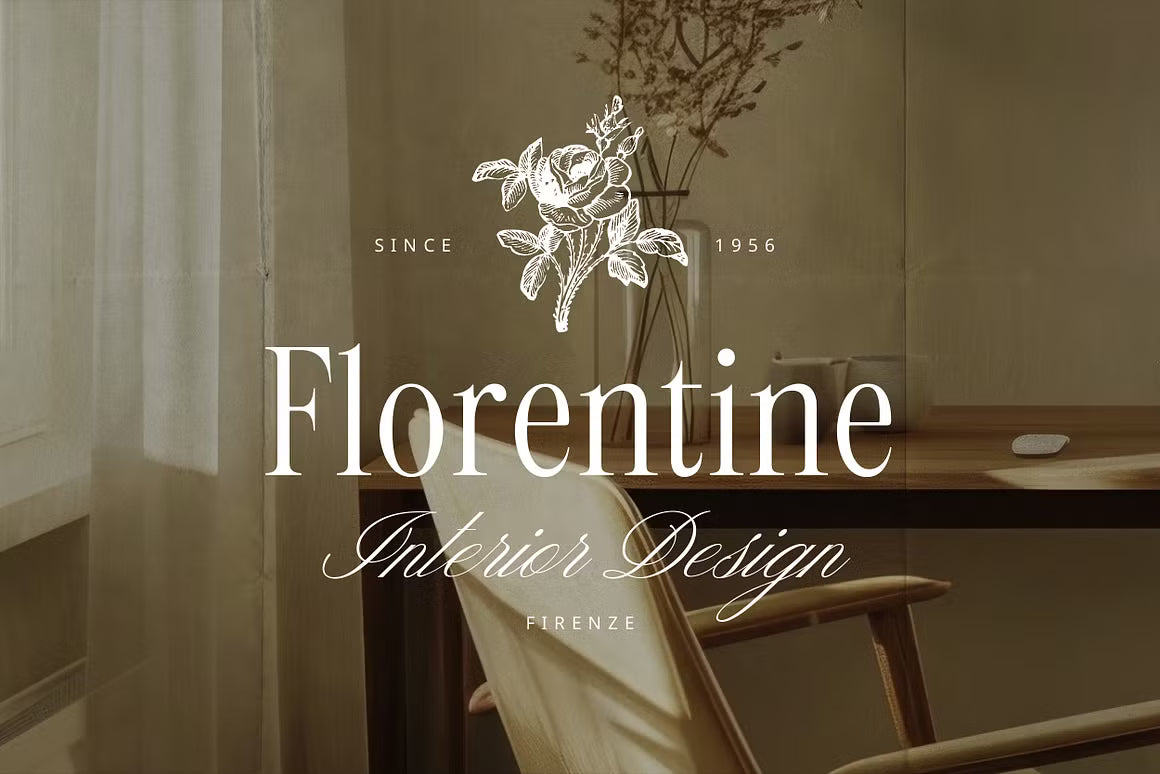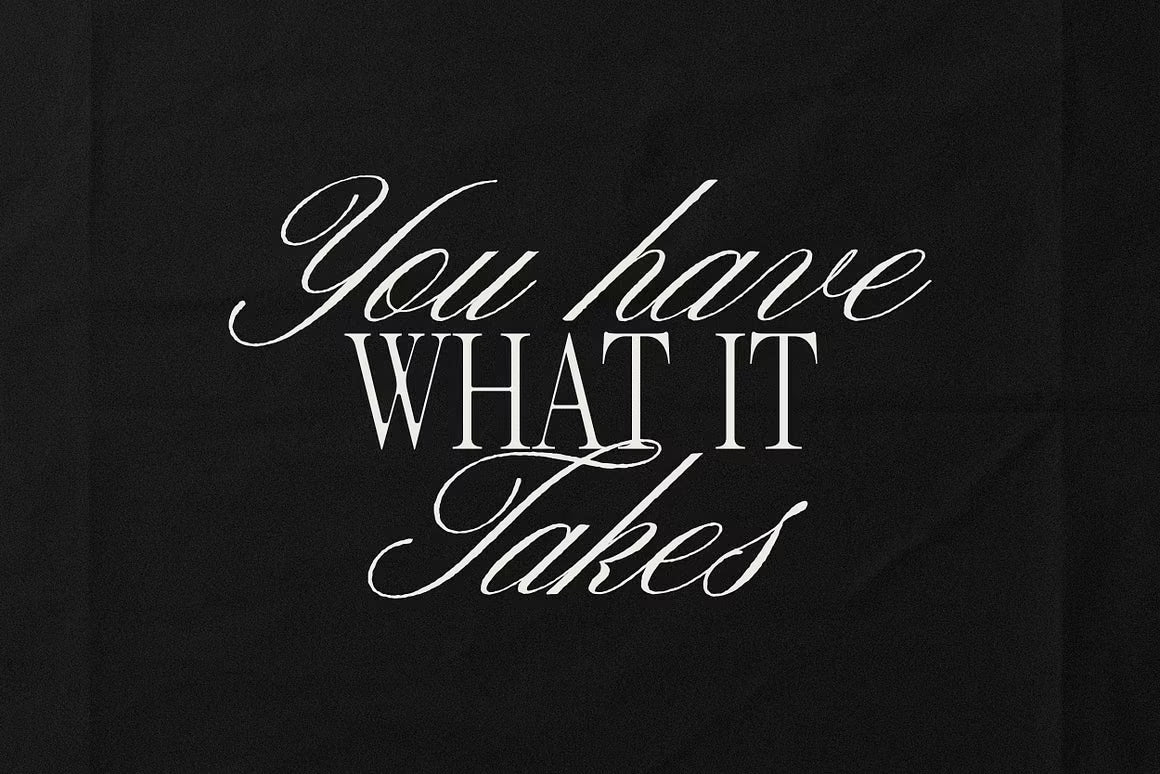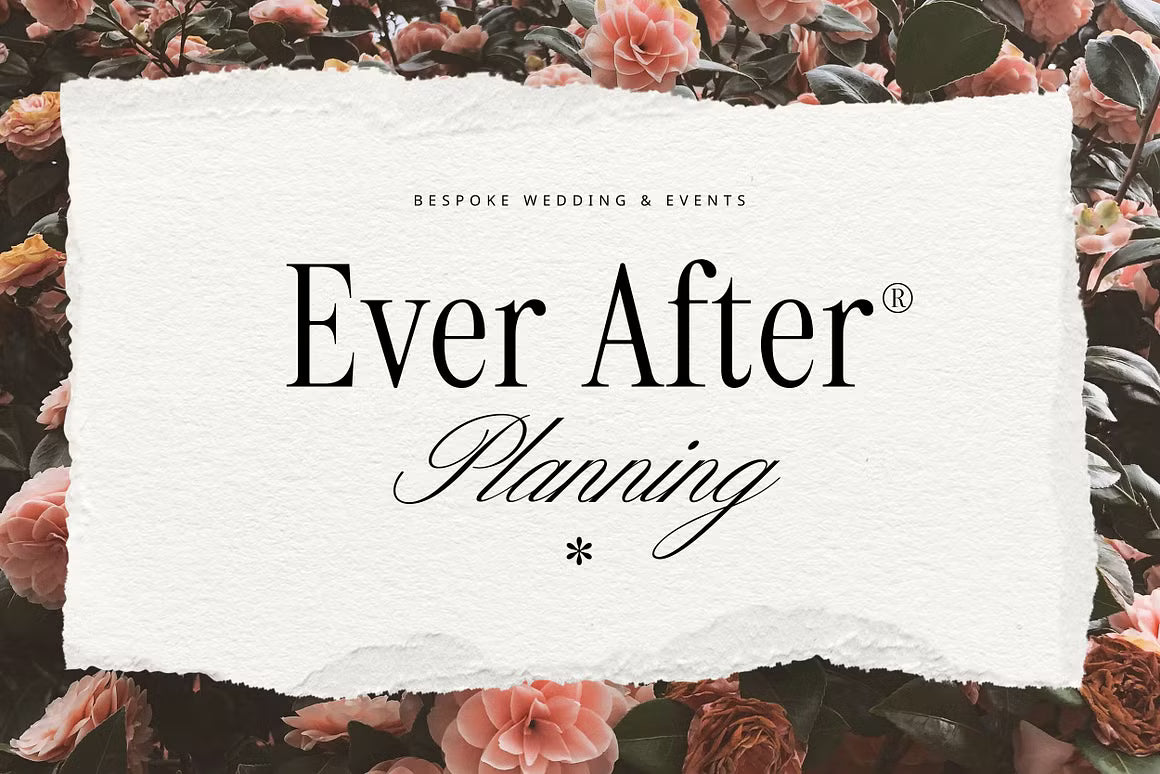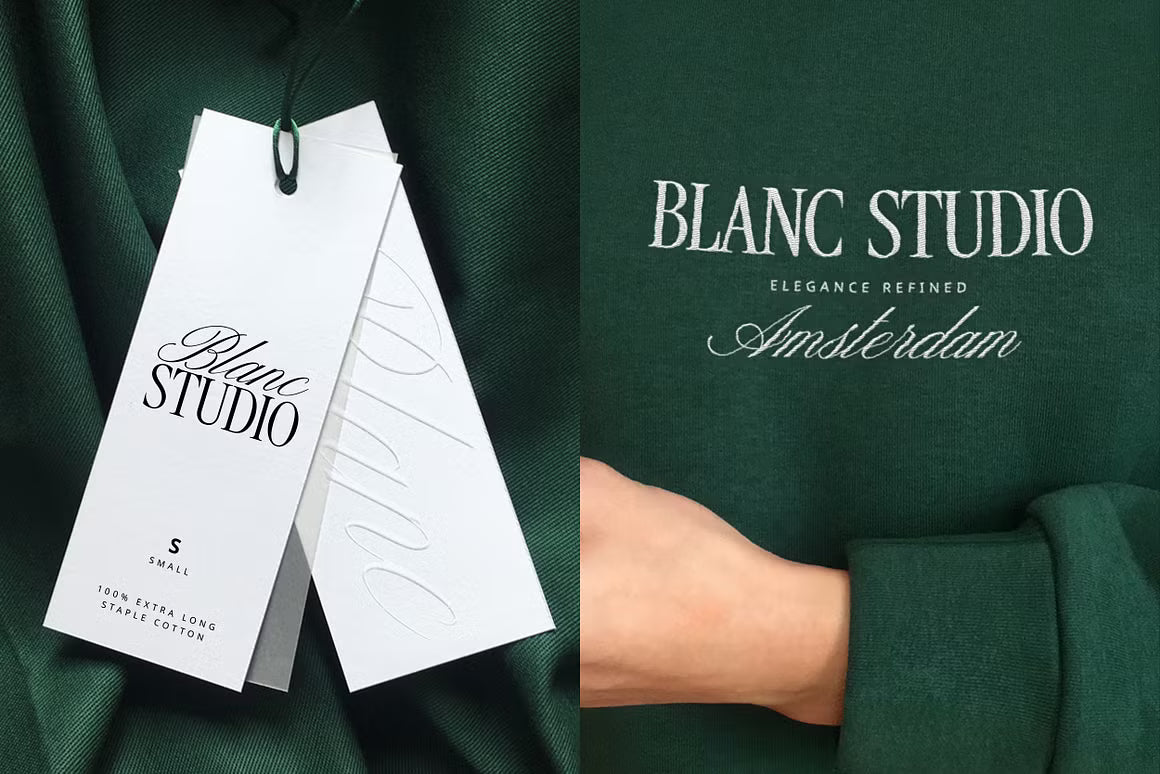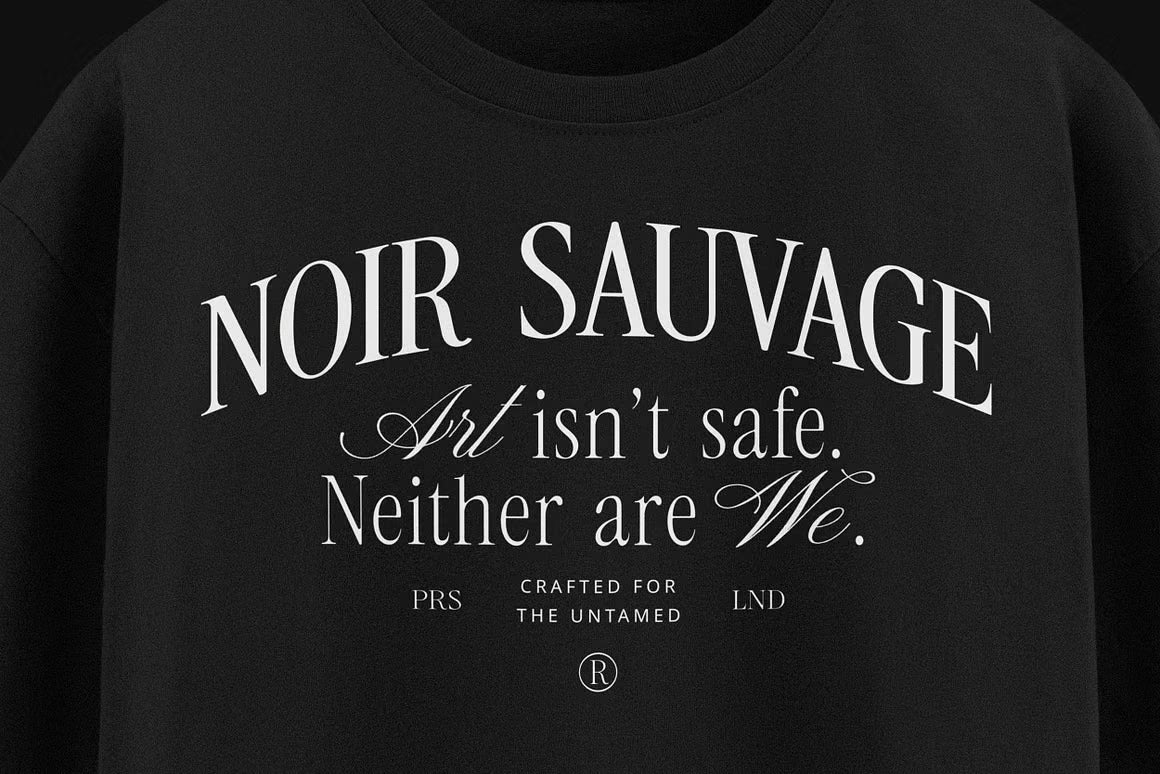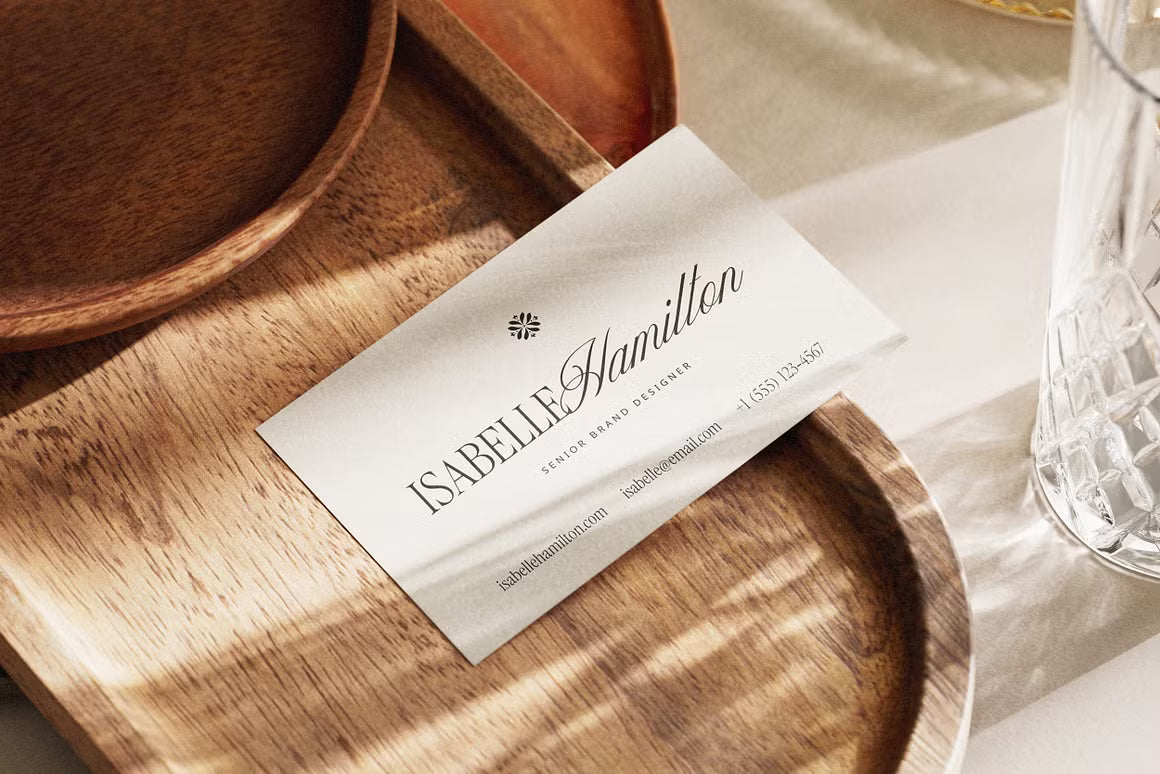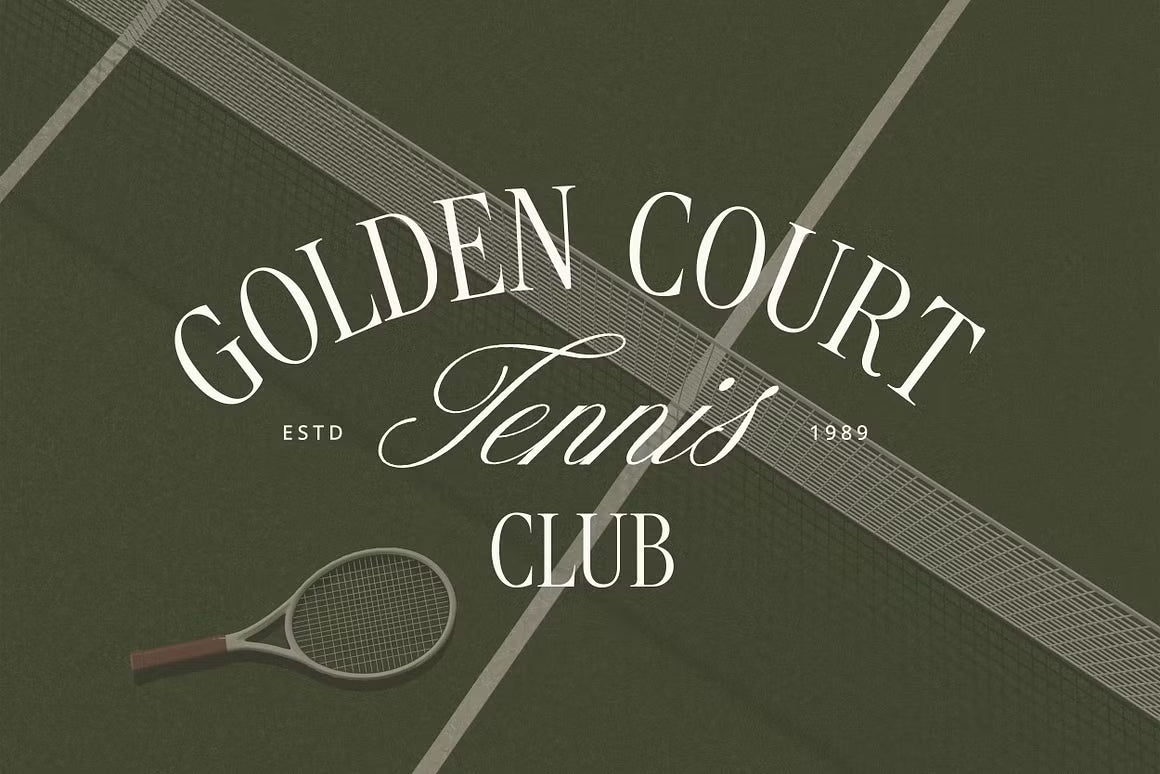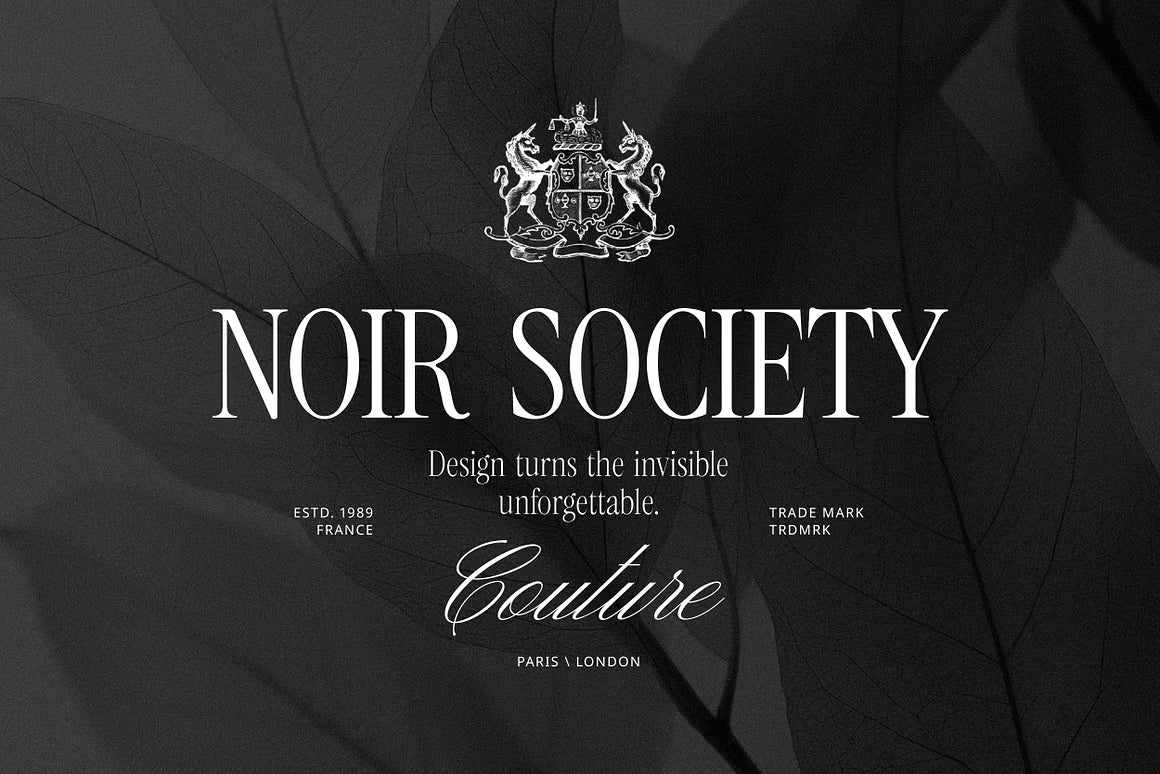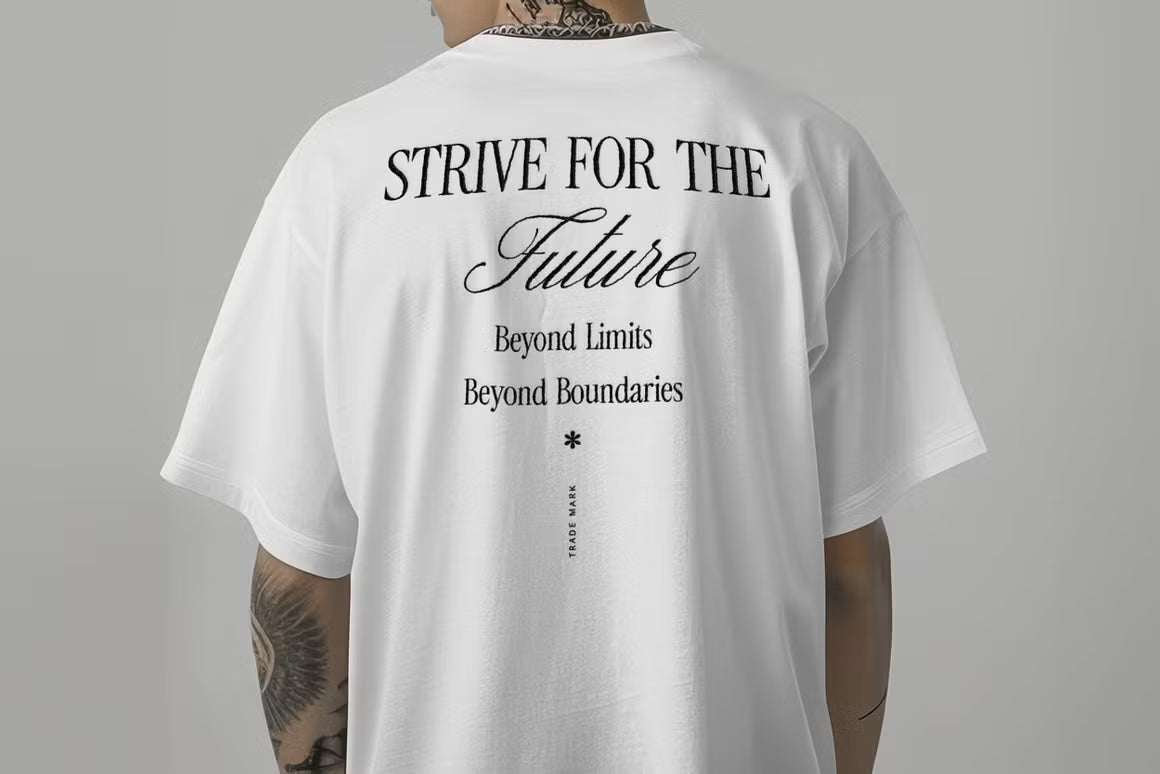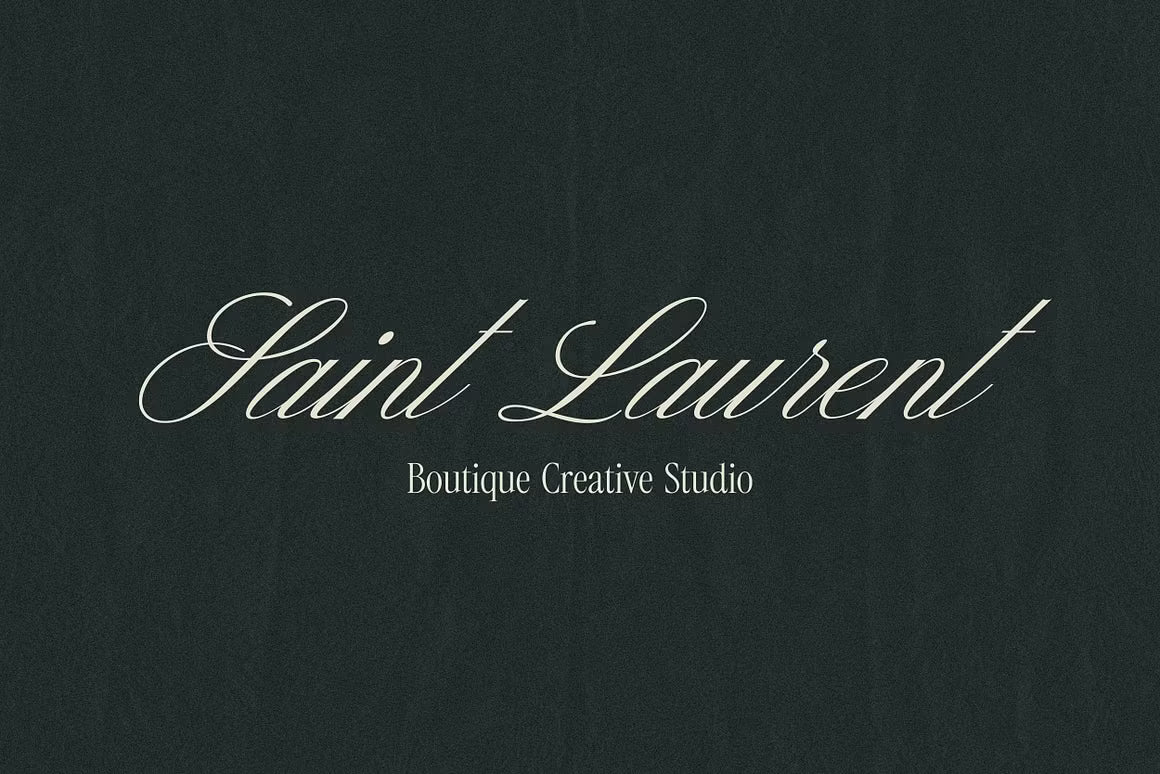
Darline Font Duo
Darline Font Duo is a refined pairing that brings together a versatile serif and a charming script, creating an effortlessly elegant combination. With multiple weights in the serif (Light, Regular, Bold) and several stylish variations in the script (including slanted and aged options), this duo offers plenty of creative room for logos, branding, invitations, and editorial work.
The fonts feel balanced and sophisticated while keeping a warm, approachable personality — perfect for projects that need both structure and a personal touch. Full language support and complete character sets make it practical for real-world use.
A lovely, harmonious pair that elevates any design with quiet confidence.